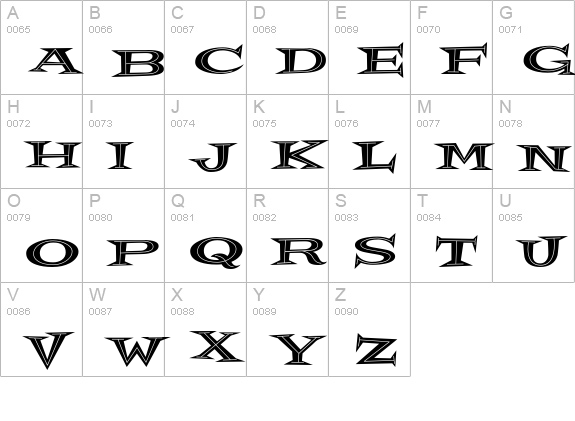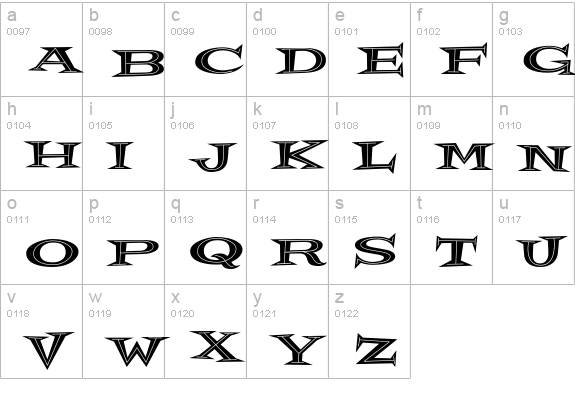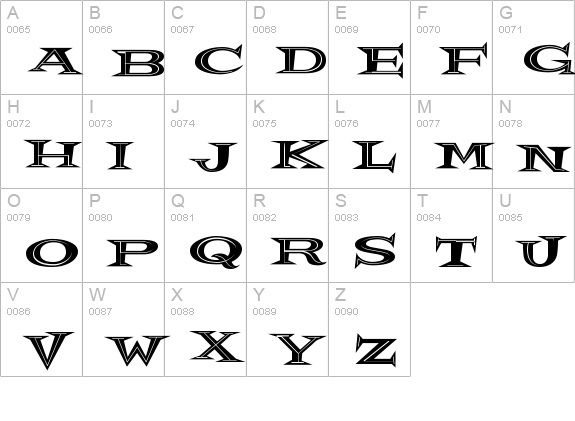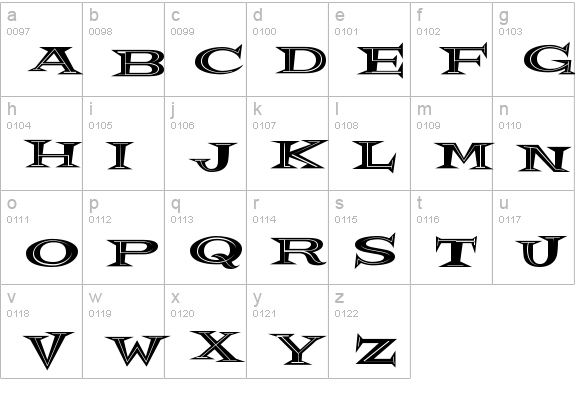
Crazy Loot BTN Inline Font Details
Crazy Loot BTN Inline is a captivating and dynamic font that exudes a sense of excitement and energy. With its bold, eye-catching design and unique inline style, this font is perfect for making a statement in your projects. Whether you're designing posters, logos, or social media graphics, Crazy Loot BTN Inline will surely grab attention and leave a lasting impression. The best part? Crazy Loot BTN Inline is completely free to download at FontsMarket.com! This means you can elevate your designs with this striking font without breaking the bank. Don't miss out on the opportunity to add a touch of whimsy and playfulness to your creations with Crazy Loot BTN Inline. Download it now and let your creativity run wild!